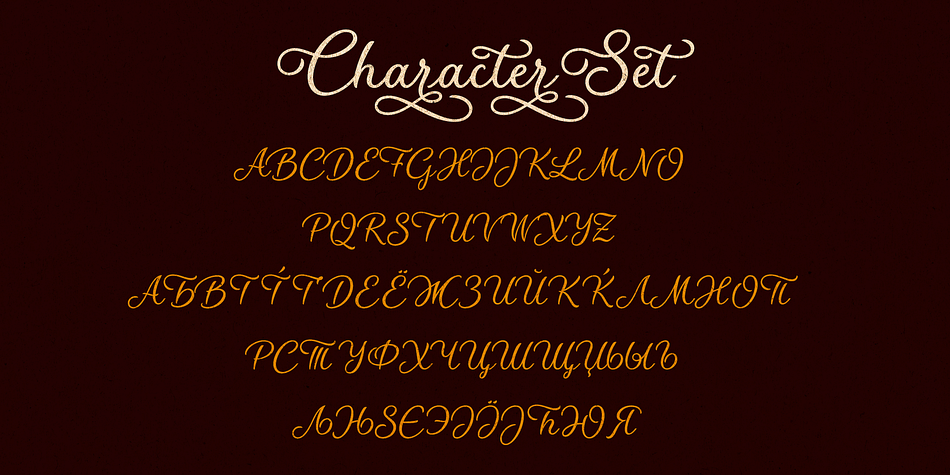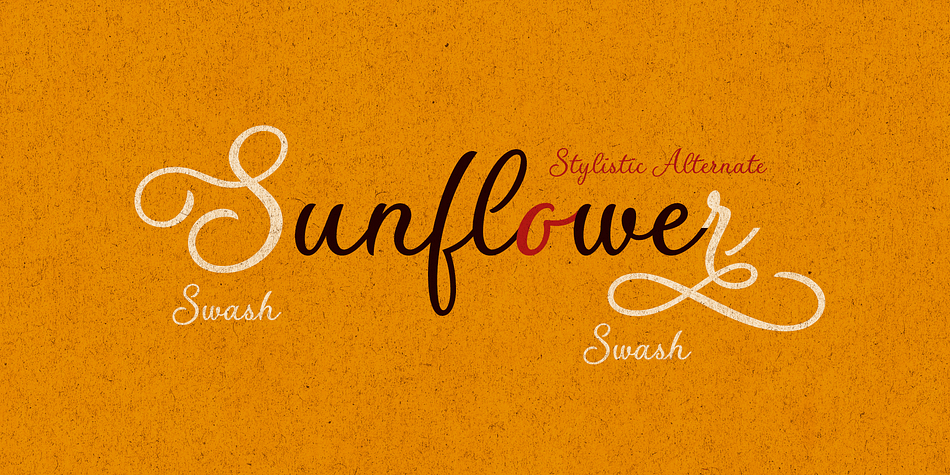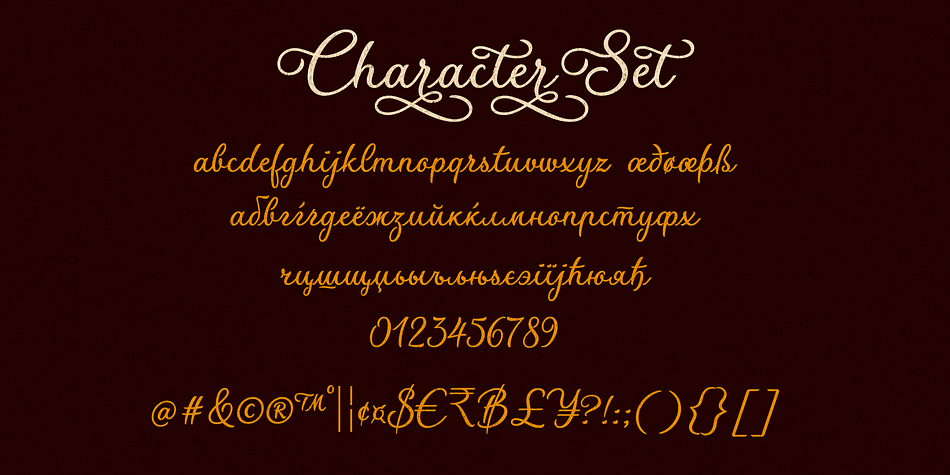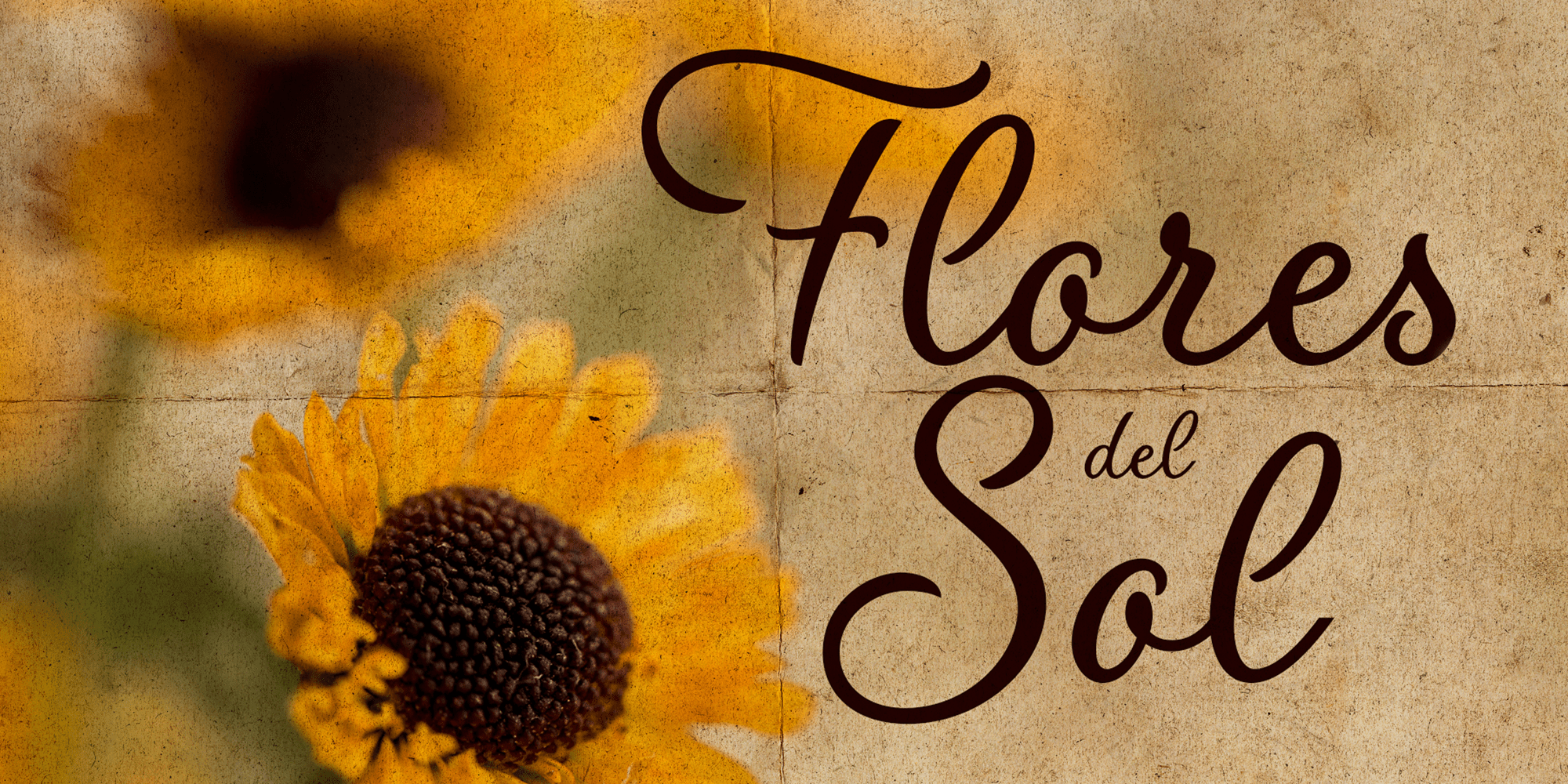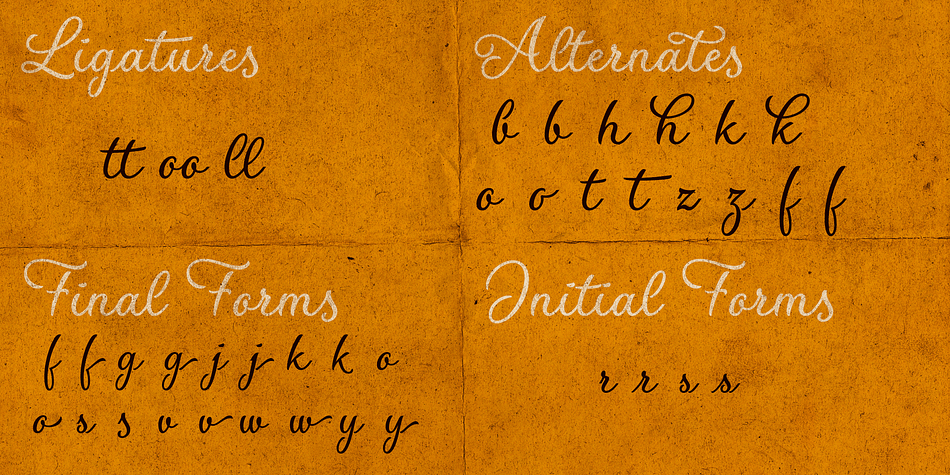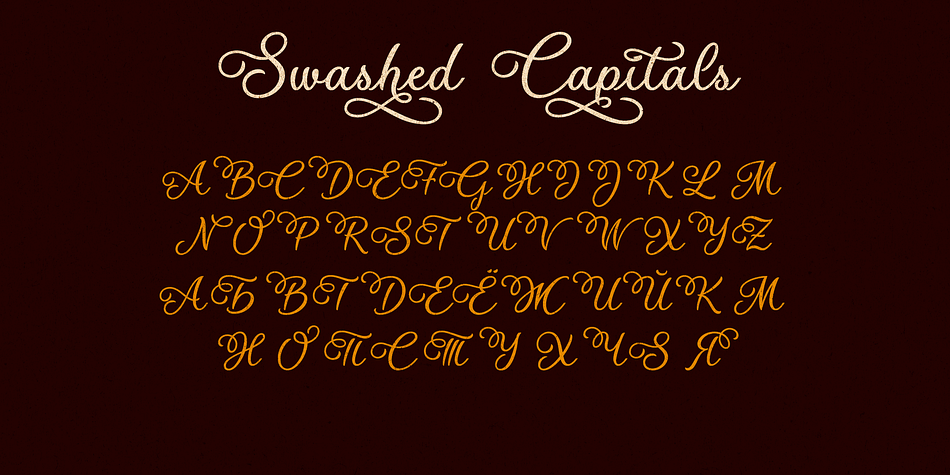
Flores del Sol
Designed by Roland Hüse, Flores del Sol is a brush script and script font family published by Fonts by Roland Hüse.
Flores del Sol is a cursive, calligraphic script font with swashed characters, ligatures and full latin and cyrillic support.
It is elegant yet friendly and playful and is perfect for logotypes, floral and boutique themes, products T-shirts, scrapbooking postcards or even weddings and name cards.